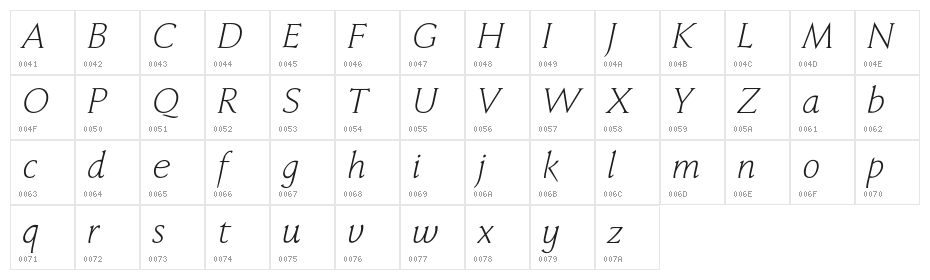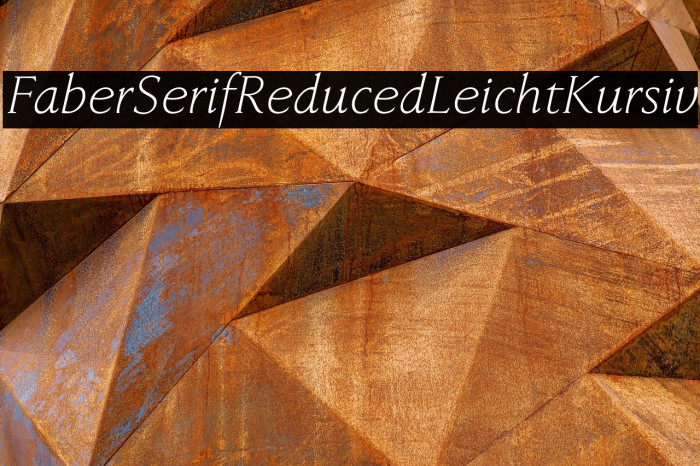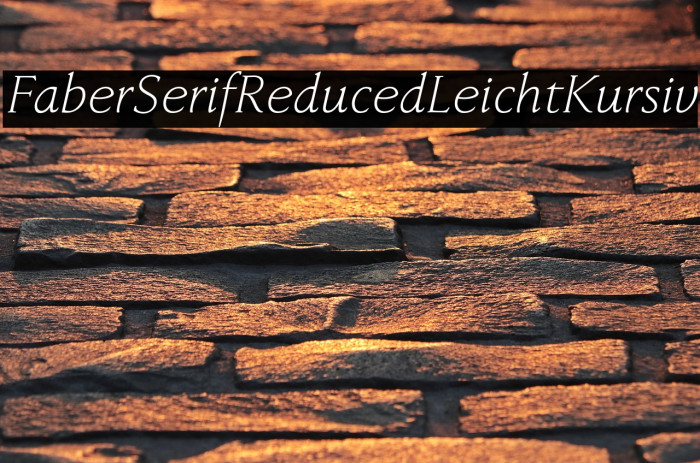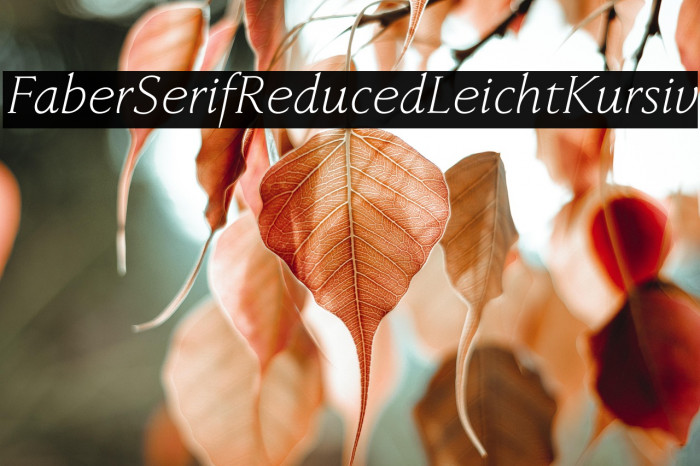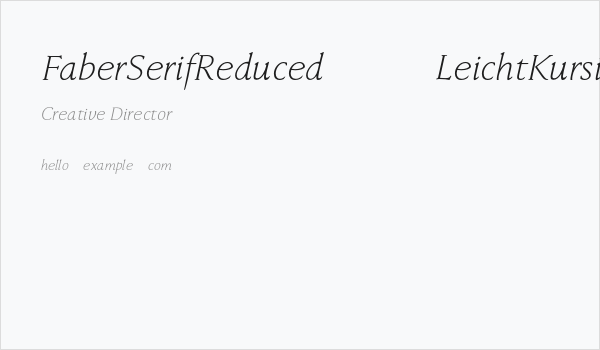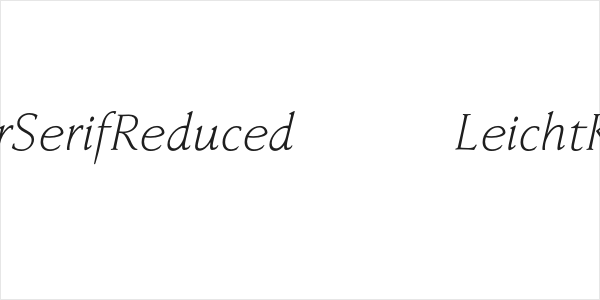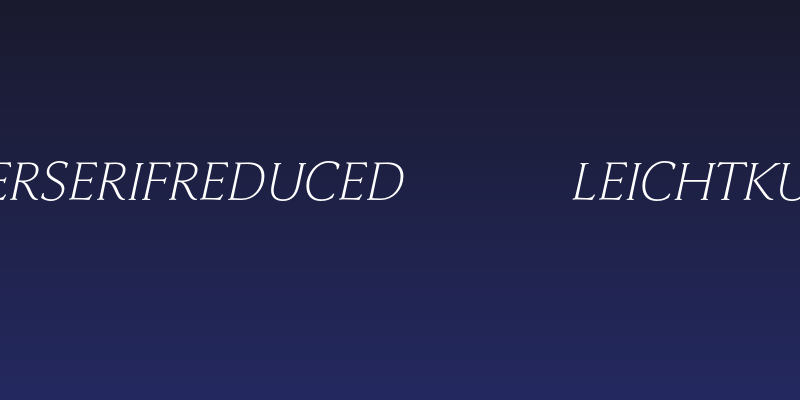
FaberSerifReduced-46LeichtKursiv Font
FaberSerifReduced-46LeichtKursiv Description
This elegant serif typeface features a refined and sophisticated design with a slight italic slant, giving it a graceful and fluid appearance. The characters are well-proportioned, with a light weight that adds a touch of delicacy. The serifs are subtle yet distinct, enhancing readability while maintaining a classic aesthetic. The font's overall style is timeless, making it suitable for a variety of applications. Its clean lines and understated elegance make it ideal for projects that require a touch of sophistication and class.
| Proposed Projects | Ideal for wedding invitations, formal documents, luxury branding, and editorial design. |